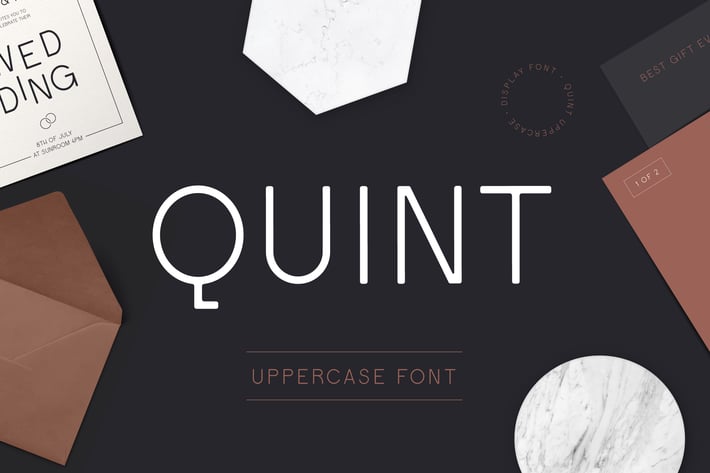
Quint Uppercase Font
Quint Uppercase font has geometric construction with round details that creates elegant letter shapes. Modern and contemporary style with retro details make it an excellent choice for headlines, logotypes, branding, posters and magazines.